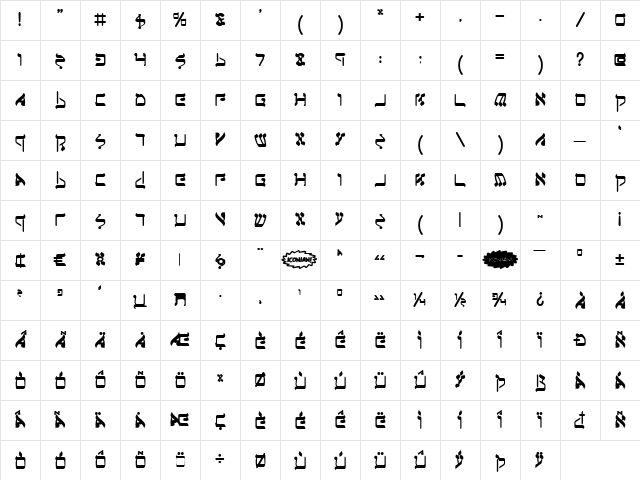
Complete Jerusalem Bold Bold glyph index. Displaying only characters natively supported by Jerusalem Bold Bold font.
Jerusalem Bold is a composed and adaptable typeface that performs quietly and consistently across a wide range of design contexts. Its bold stroke weight gives it real presence on the page.